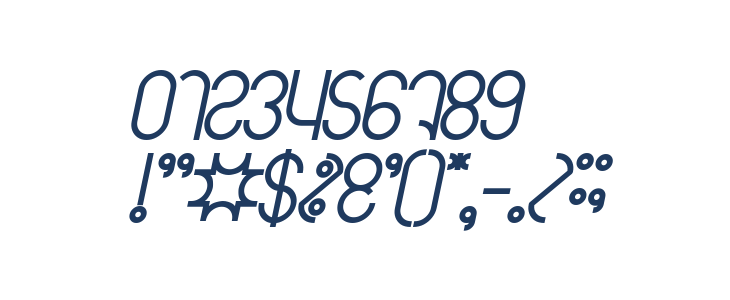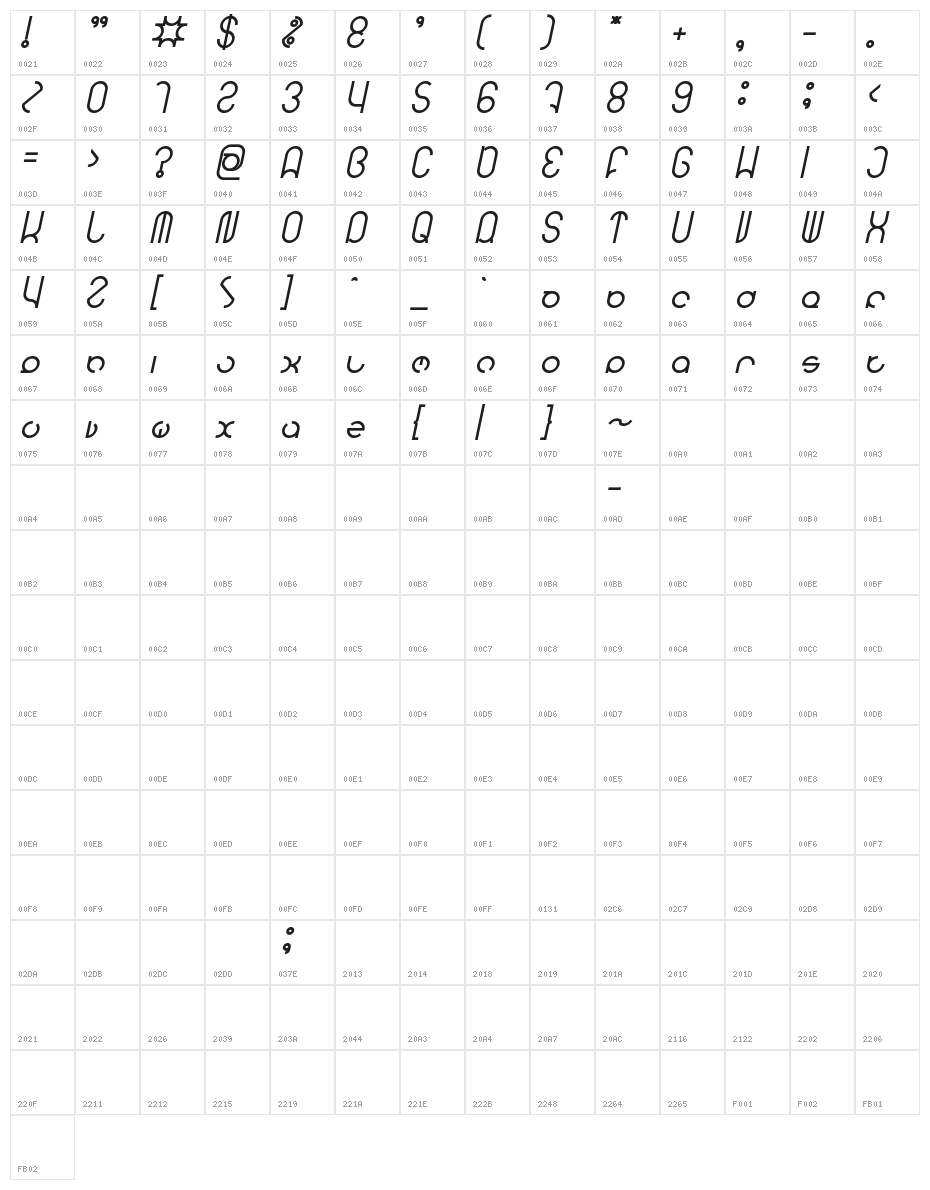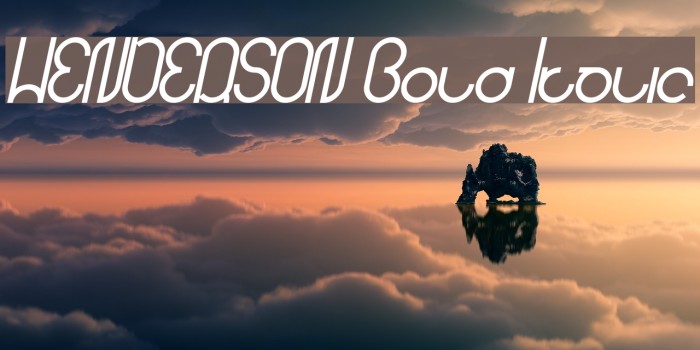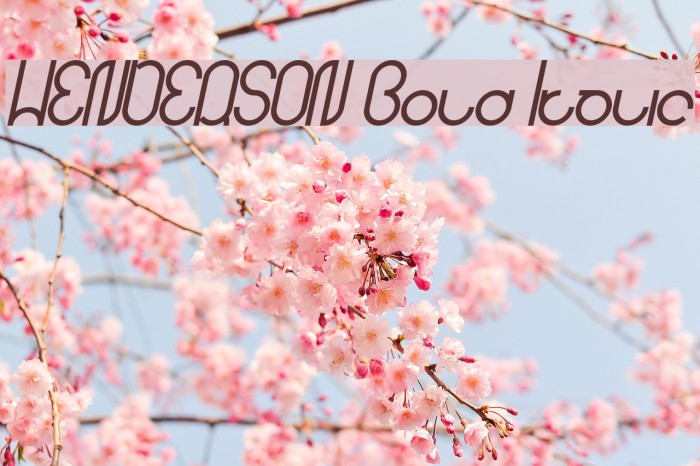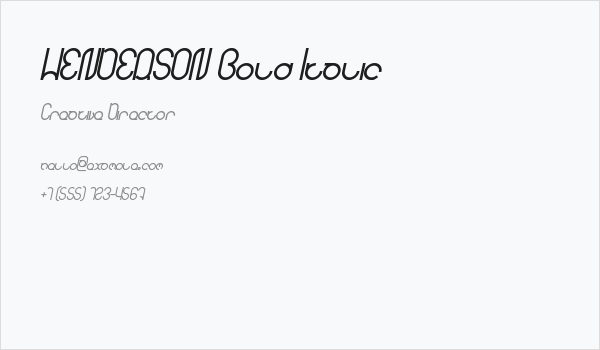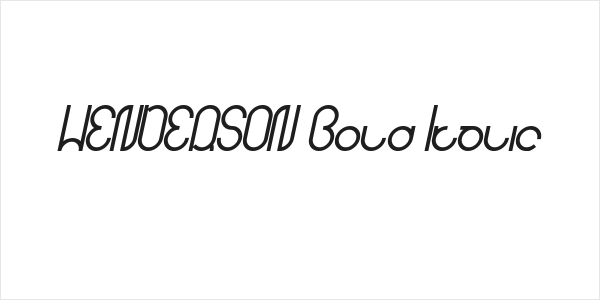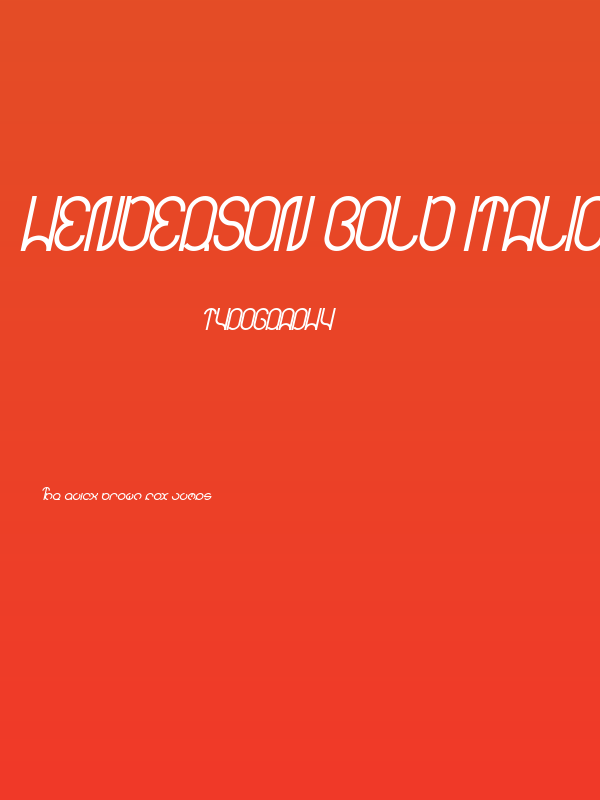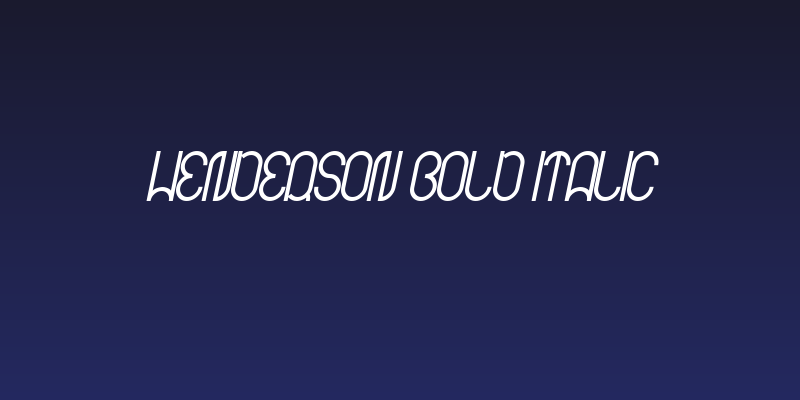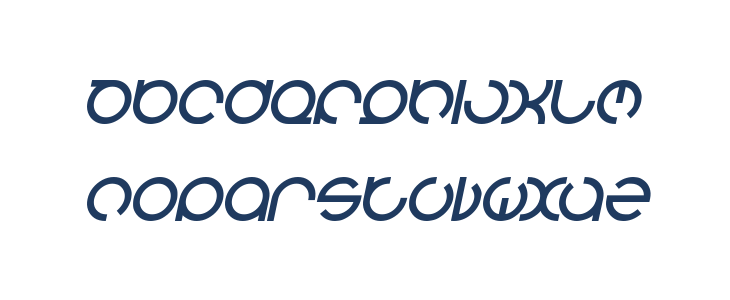
HENDERSON Bold Italic Font
HENDERSON Bold Italic Description
This font features a bold and italic style with a modern and futuristic appearance. The characters are uniquely designed with a combination of rounded and angular elements, creating a dynamic and eye-catching look. The uppercase letters are tall and narrow, while the lowercase letters maintain a consistent flow with slight curves. Numbers and special characters are crafted to match the overall aesthetic, providing a cohesive and stylish typeface. The font's design is both distinctive and versatile, suitable for various creative applications.